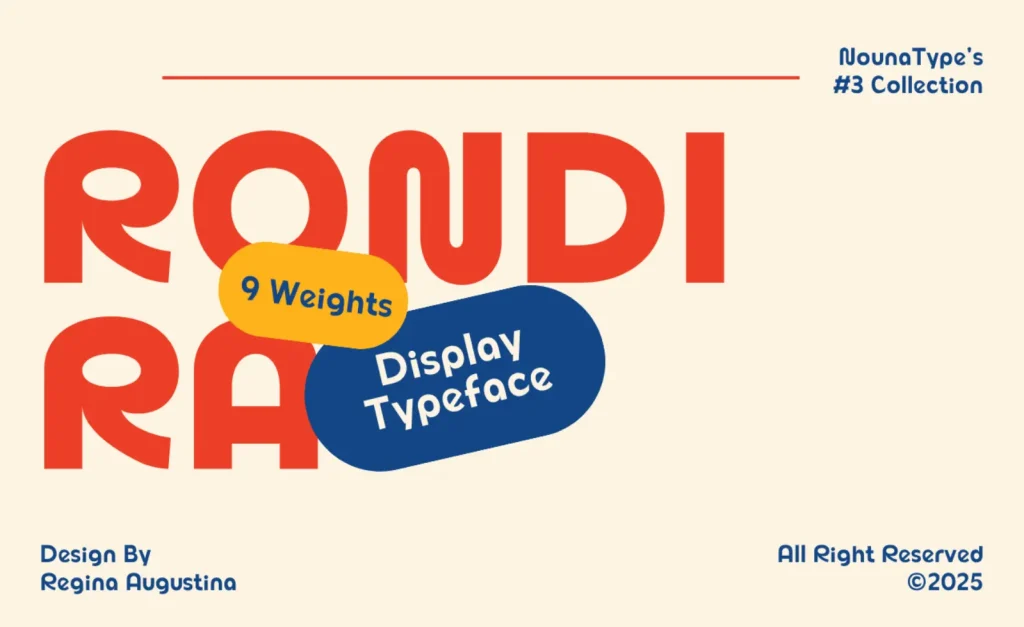
Rondira Geometric Font
Rondira is a geometric display font that adds a playful and quirky energy to design projects.
Its unique curves and bold personality are crafted for creating attention-grabbing visuals.
You can use this typeface for posters, packaging, social media graphics, or branding projects that require a distinctive and fun aesthetic.
Features
• Geometric sans-serif style
• Playful, quirky letterforms
• Bold and impactful personality